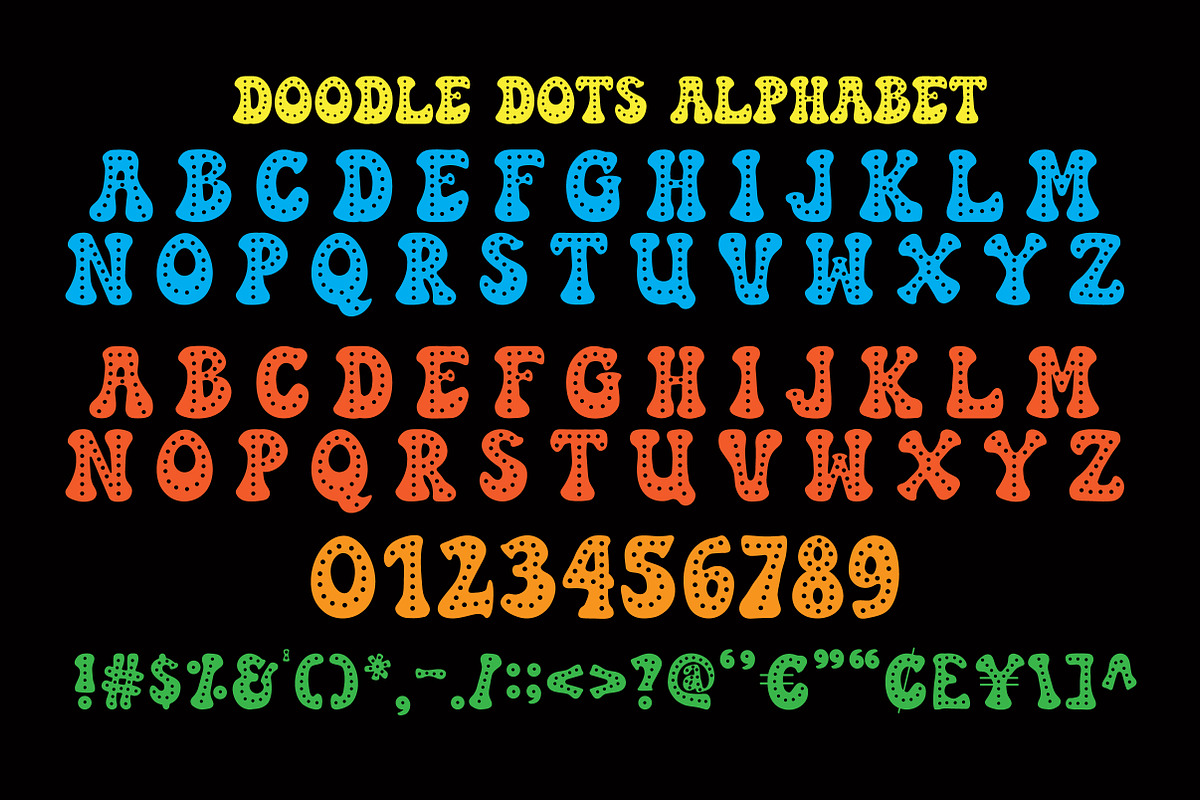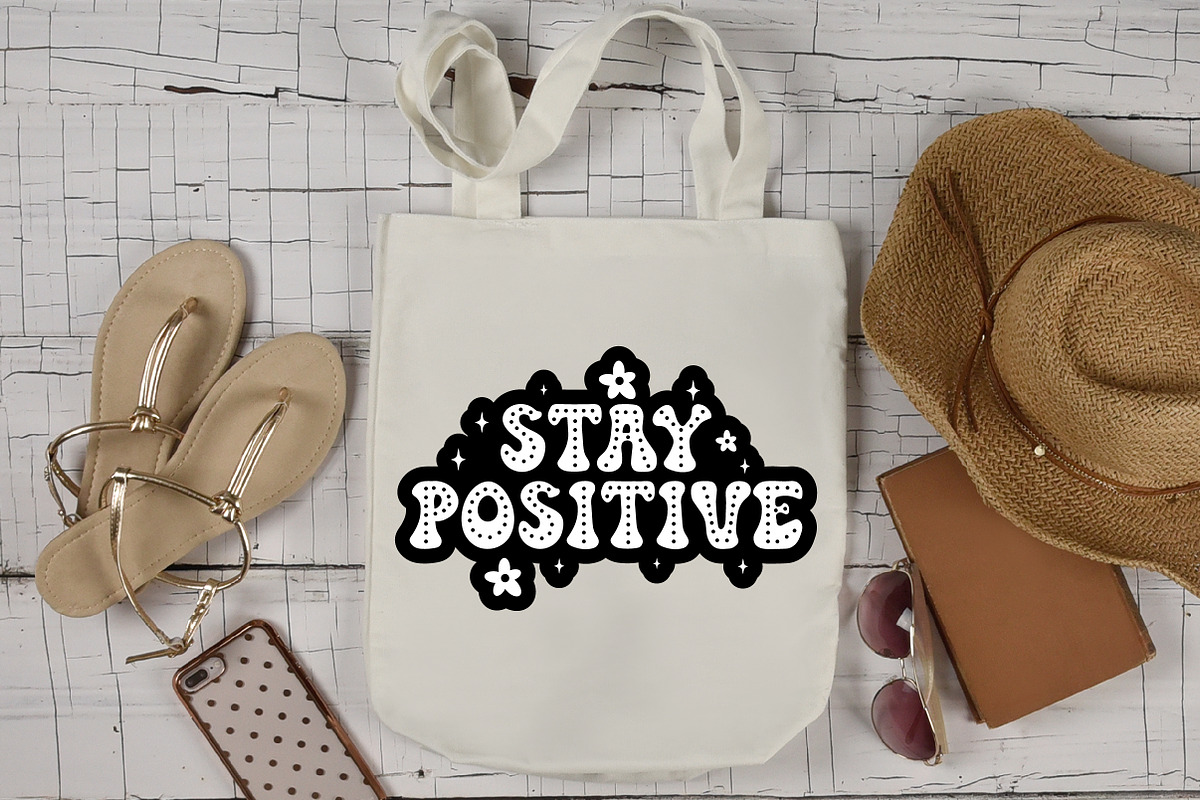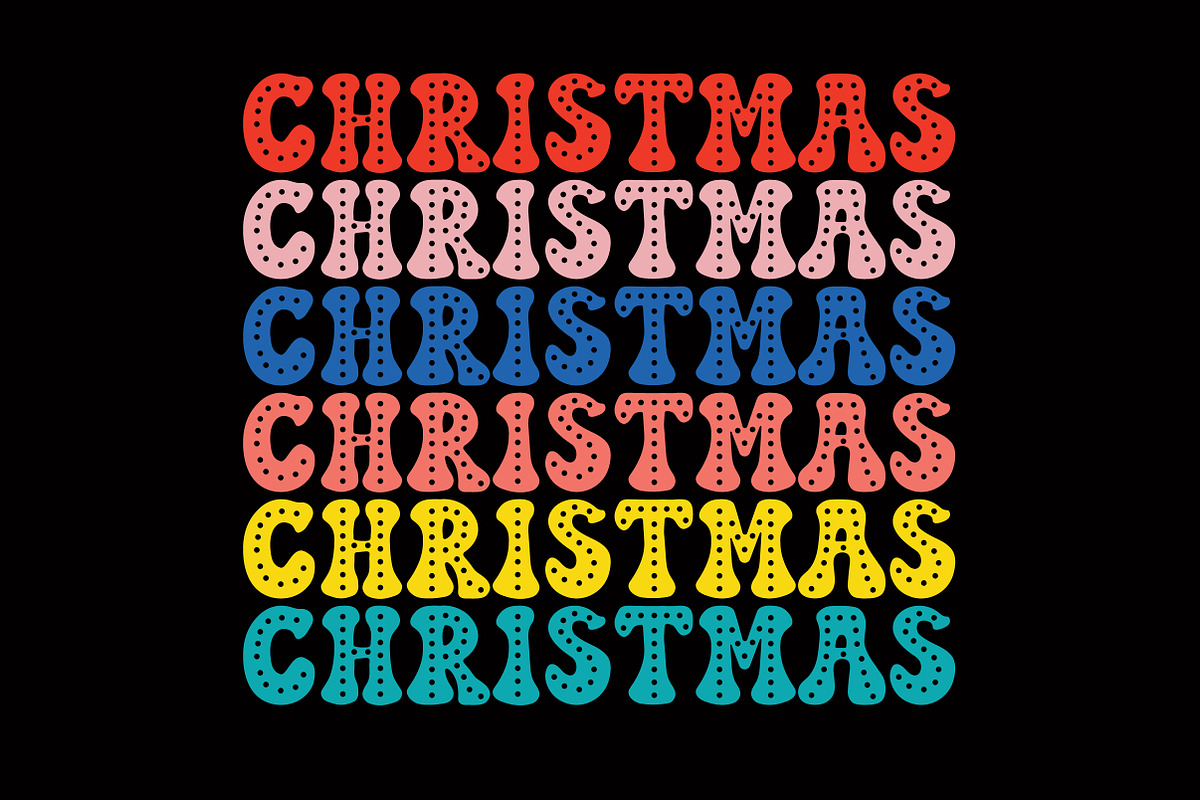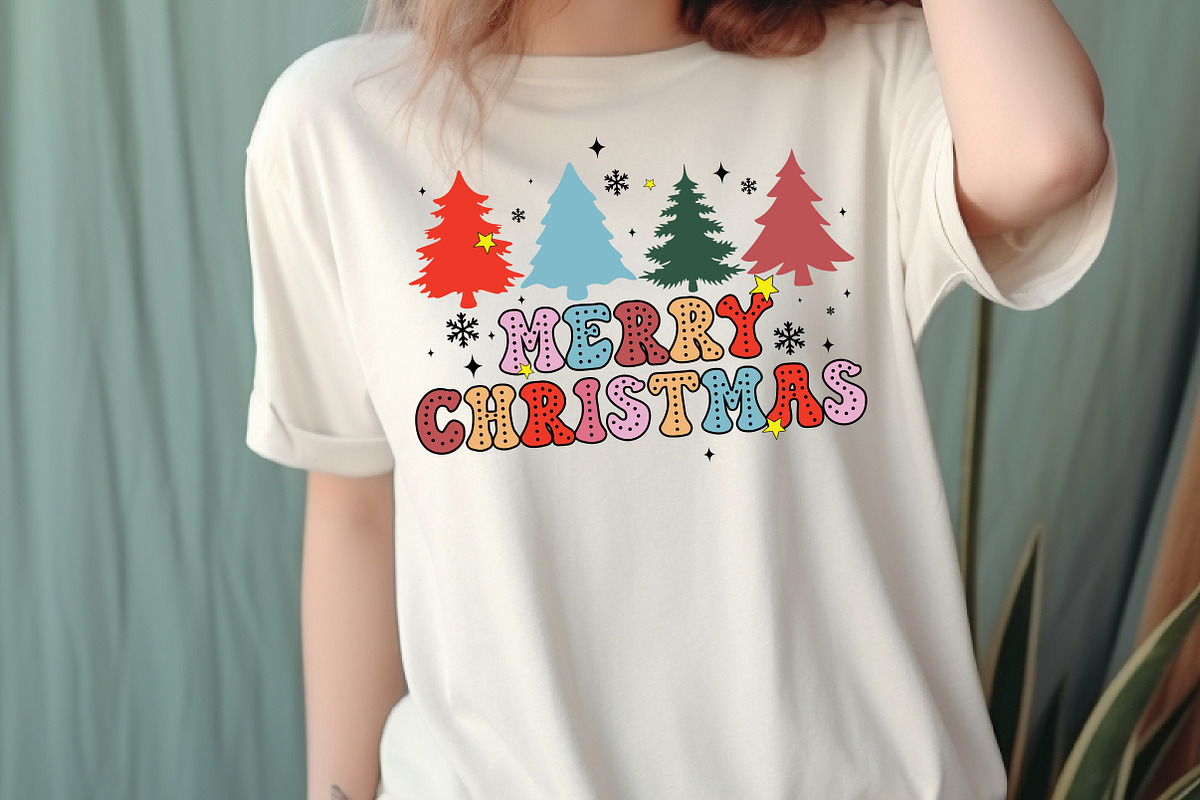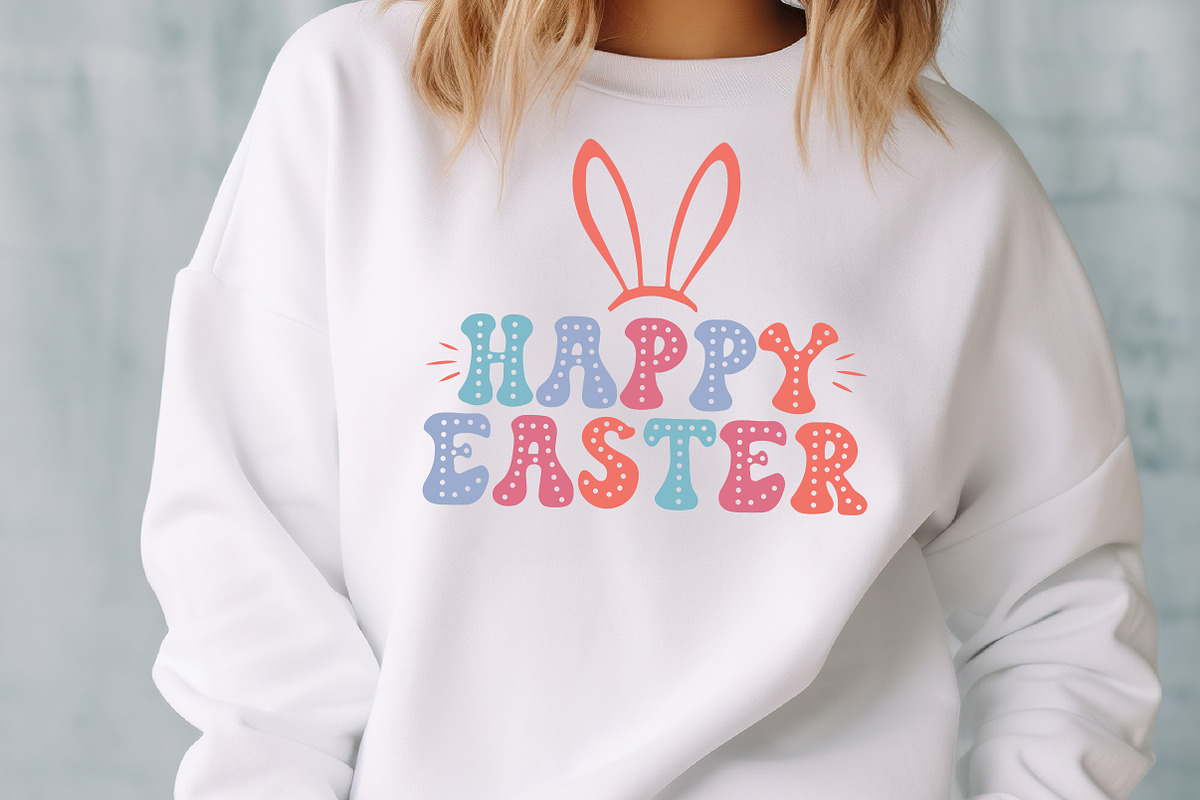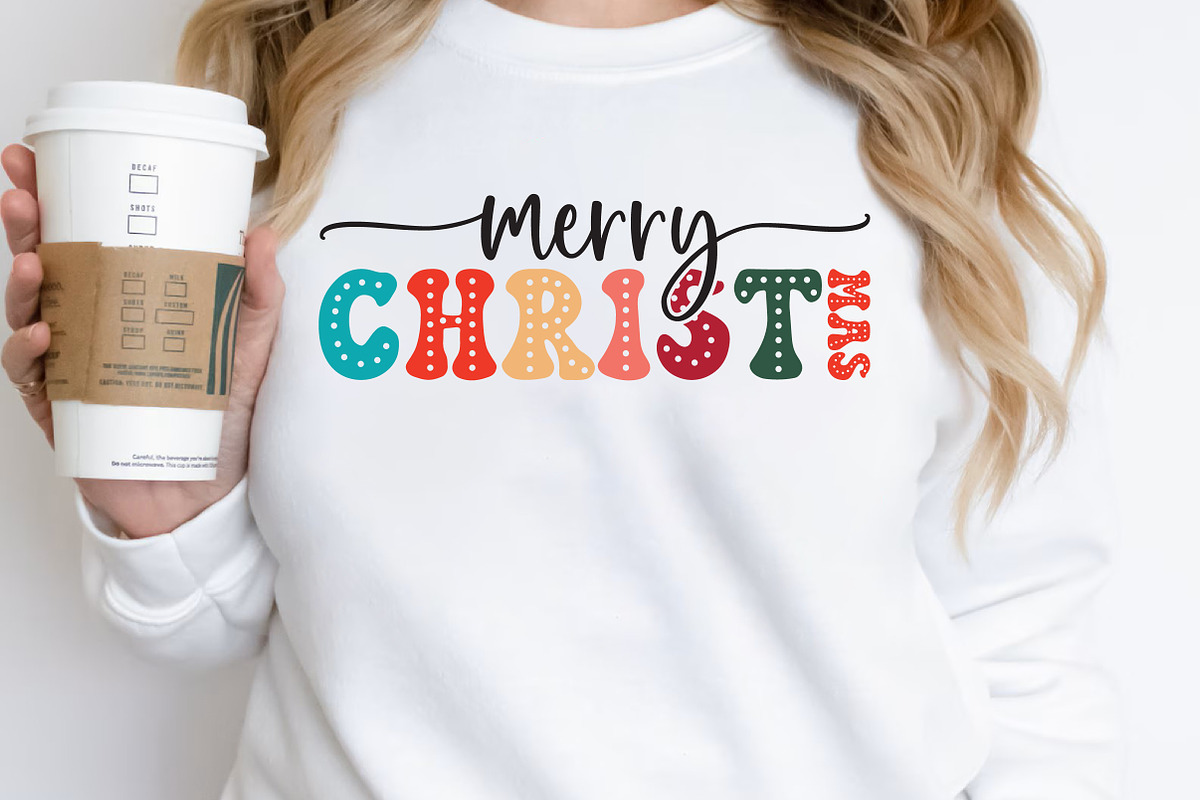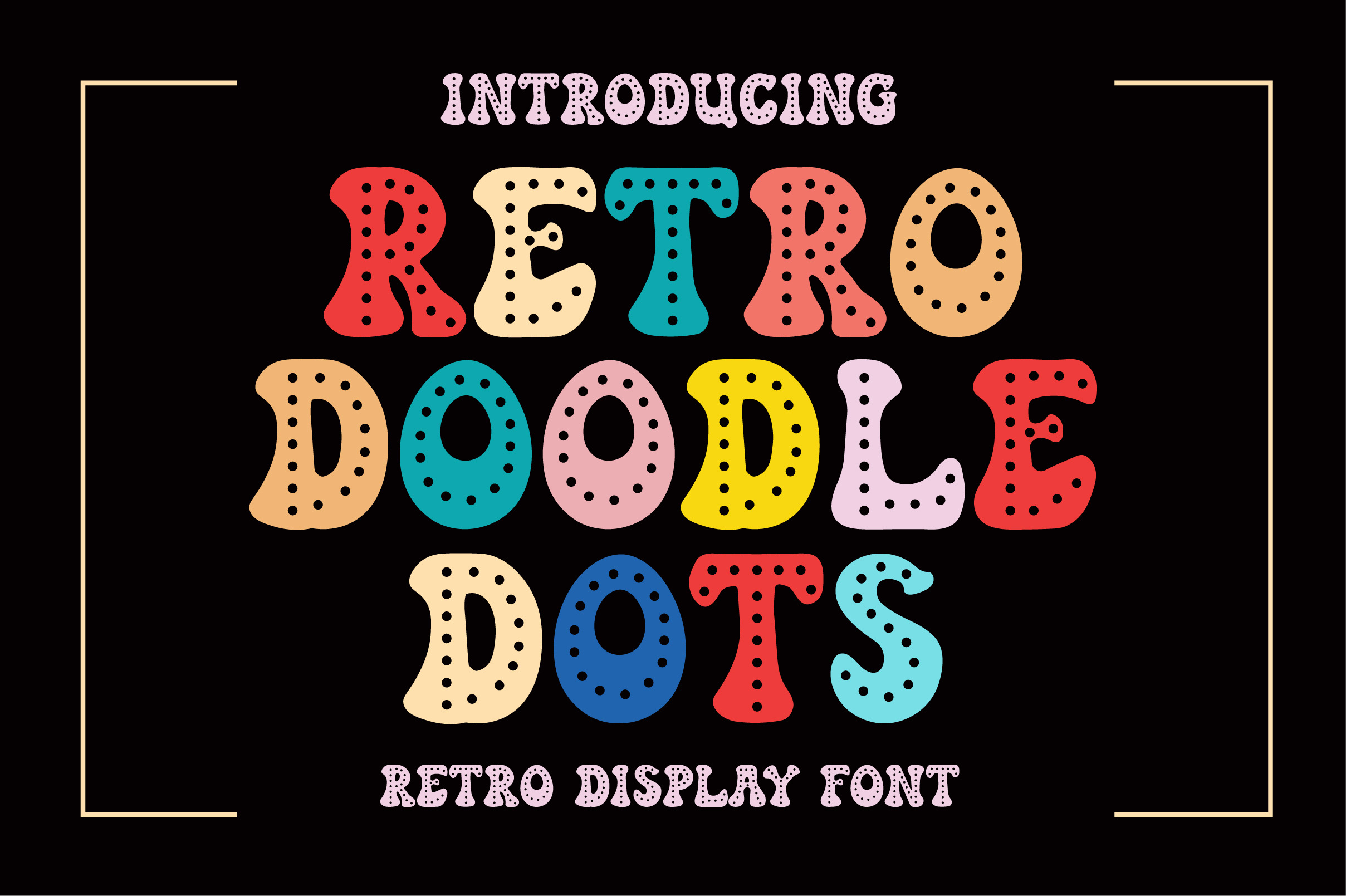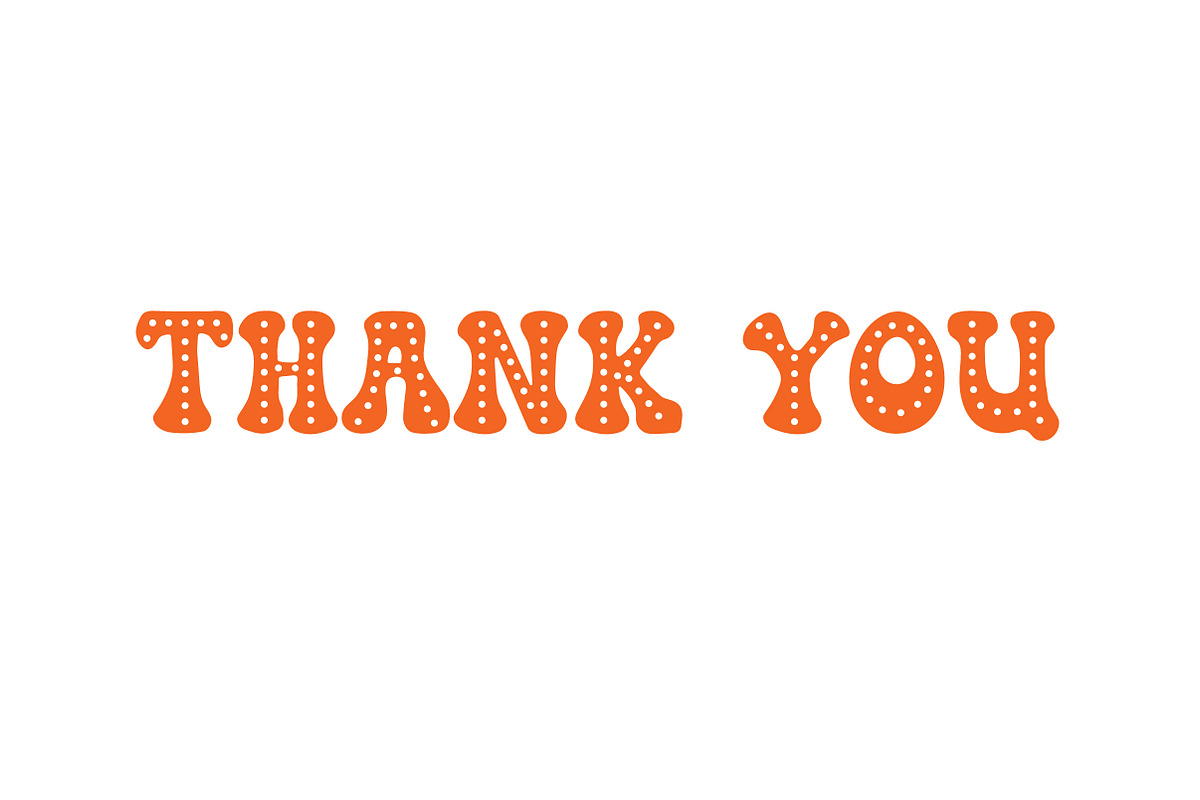
Retro Doodle Dots Font
Retro Doodle Dots is a playful groovy style display font. Its whimsical beauty and orderly typeface make it attractive. It's perfect for any funny project. Its clear pronunciation makes it more attractive. Definitely innovative, especially for Christmas and Easter projects. Use it in your designs now to realize its beauty.